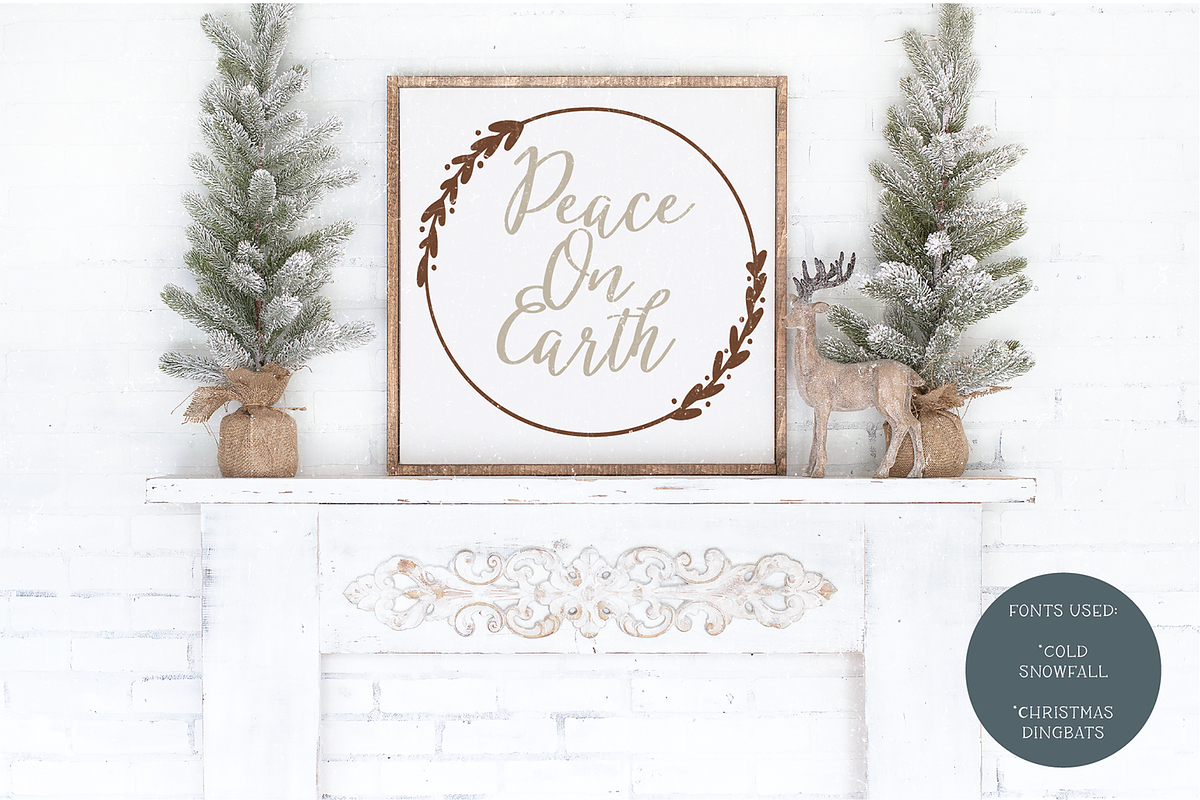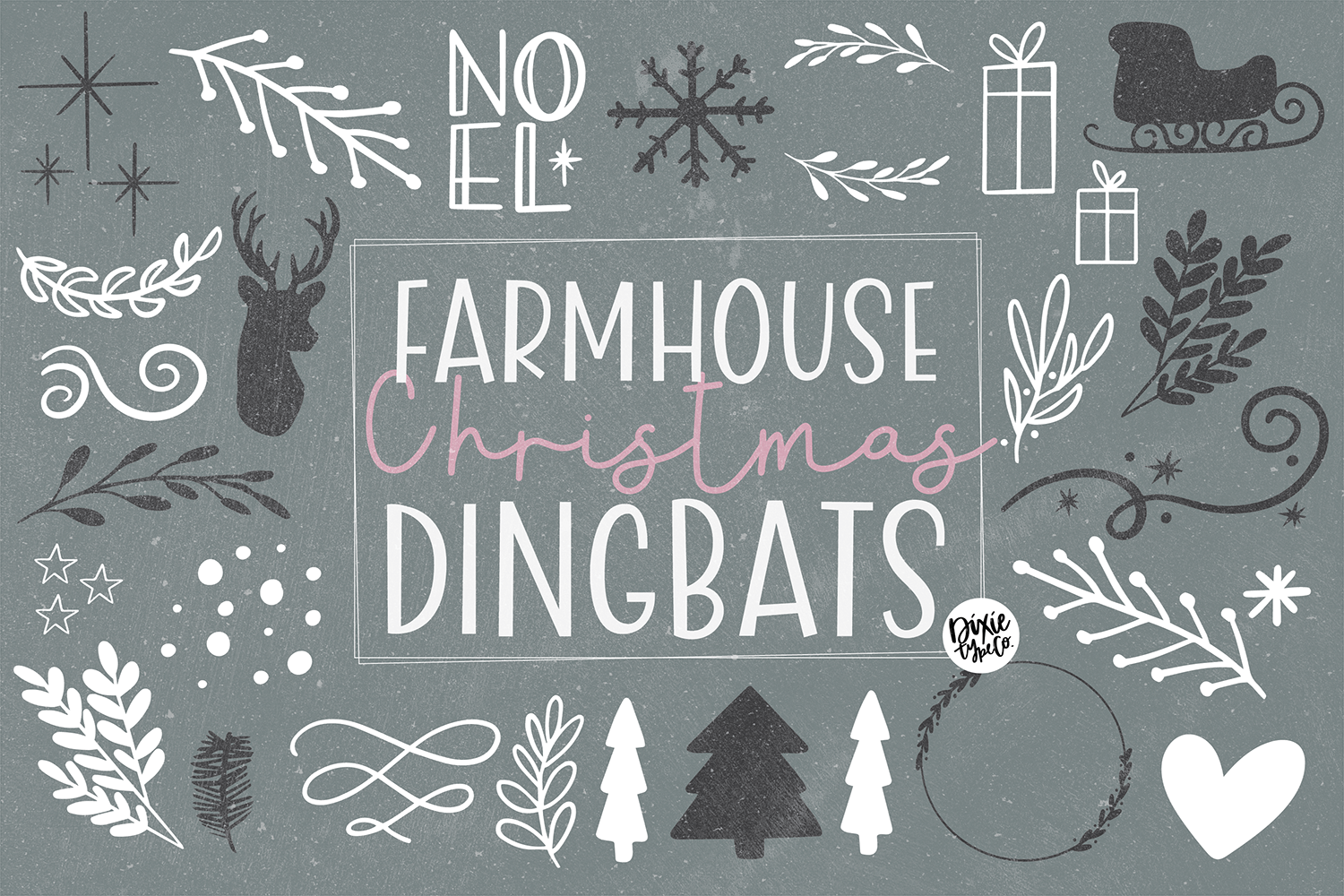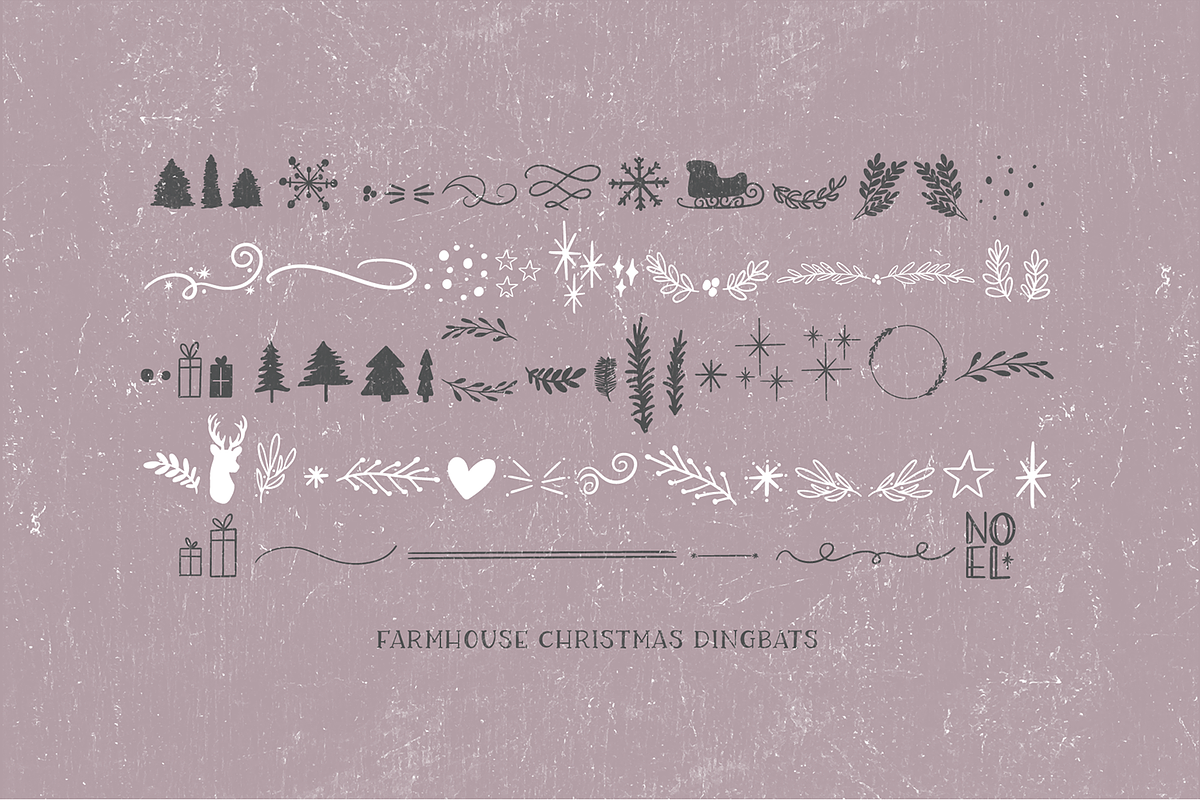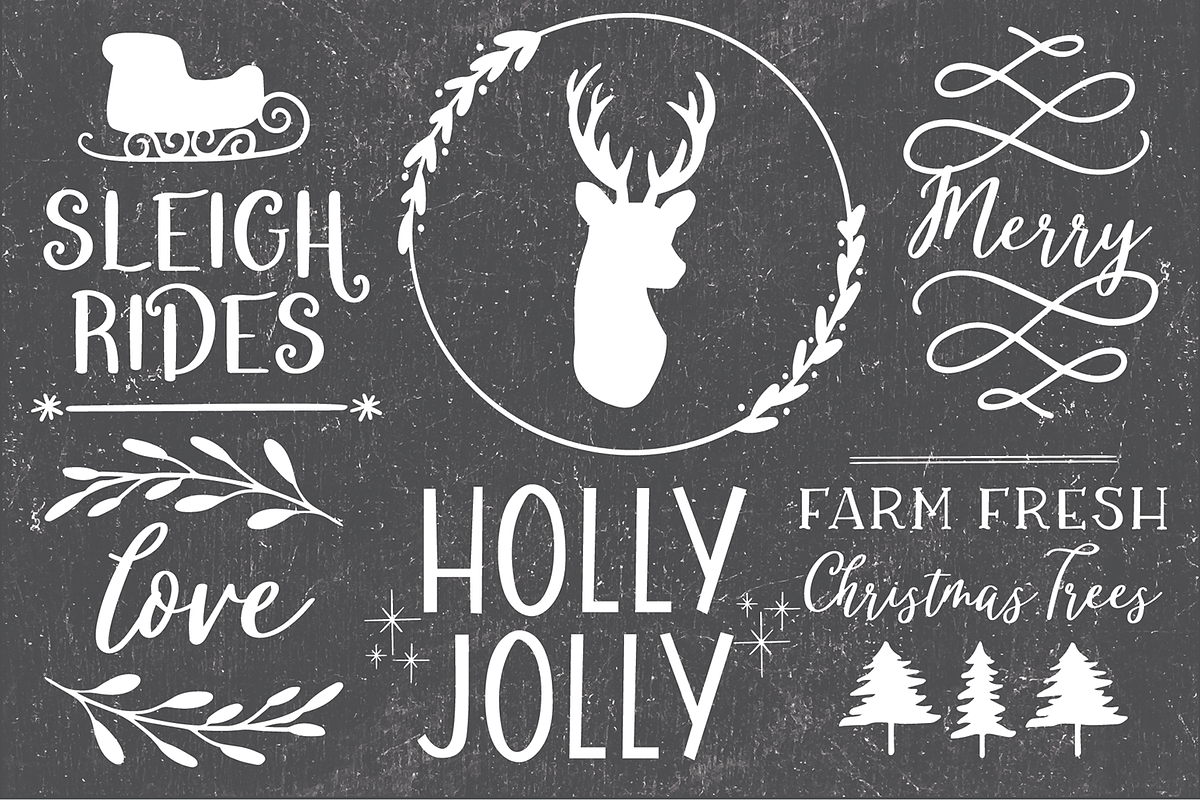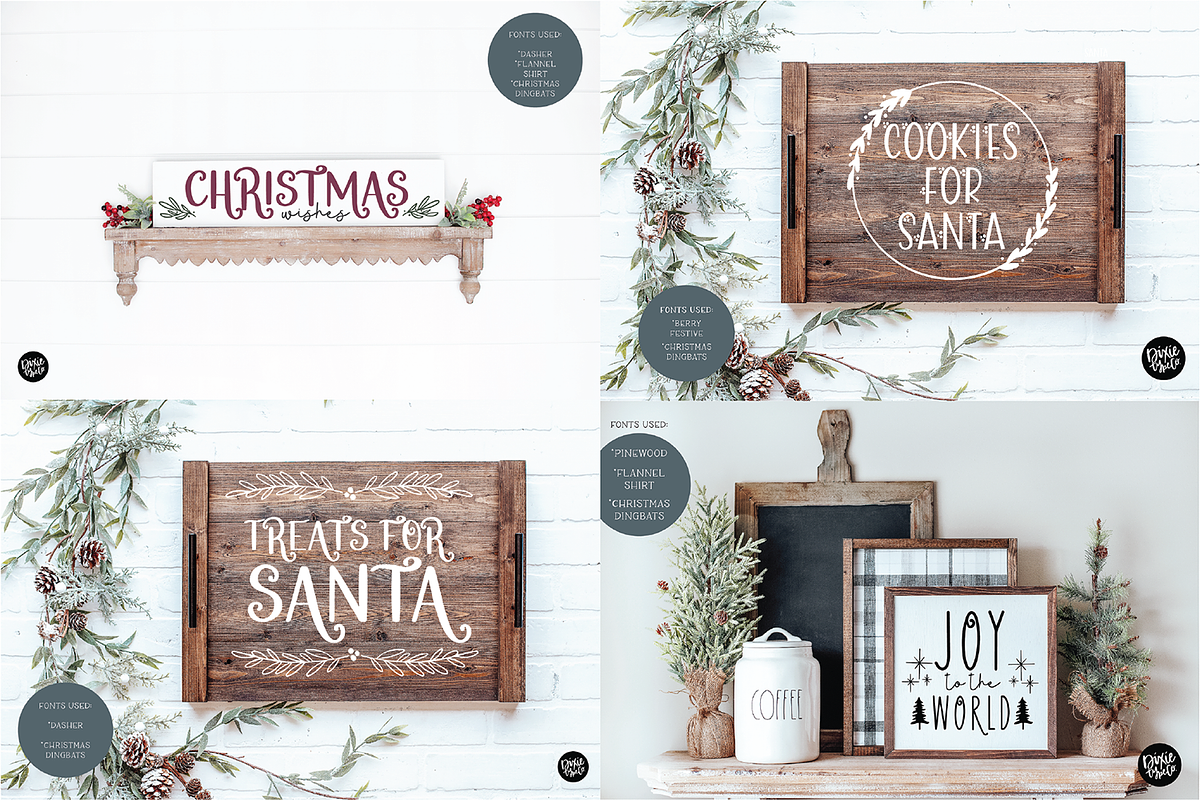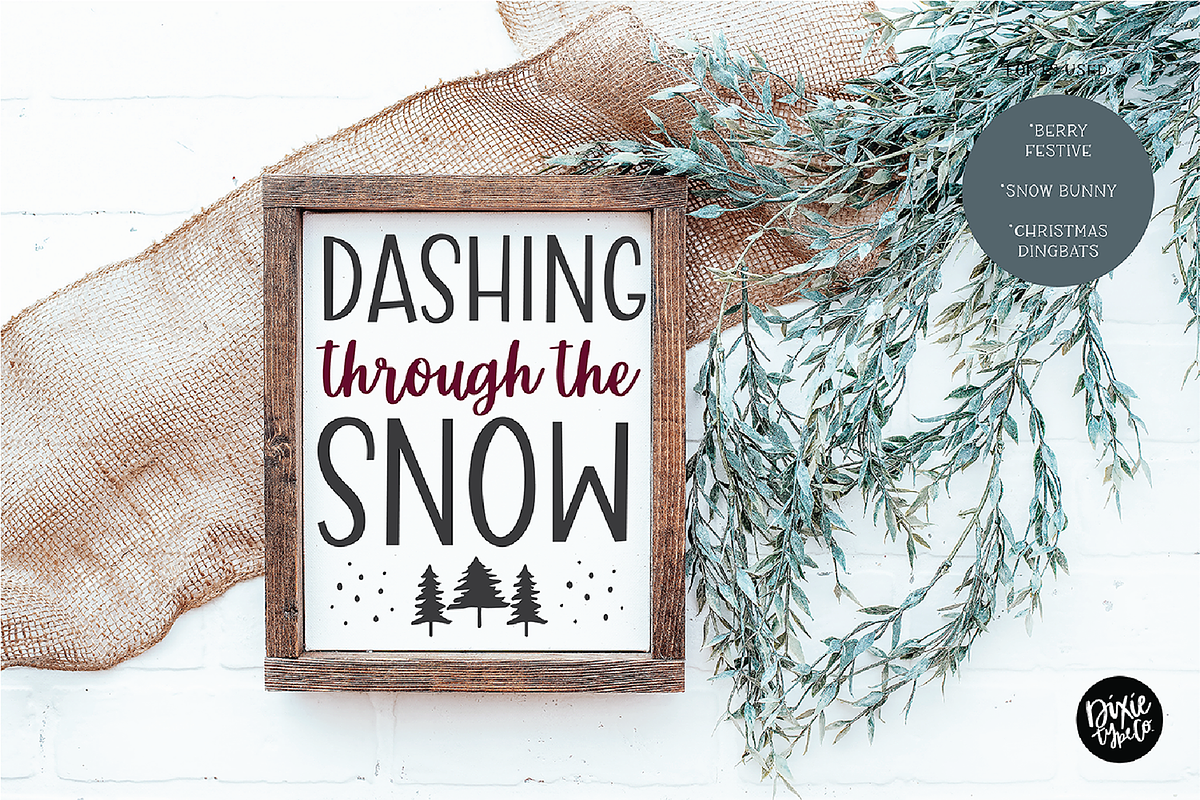
FARMHOUSE CHRISTMAS DINGBATS Font
Farmhouse Christmas Dingbats
{ A typographic font hand-lettered with love by Dixie Type Co. }
This font includes 70 Christmas doodles that are the perfect complement to your craft designs, Christmas decor, farmhouse signs, and more.